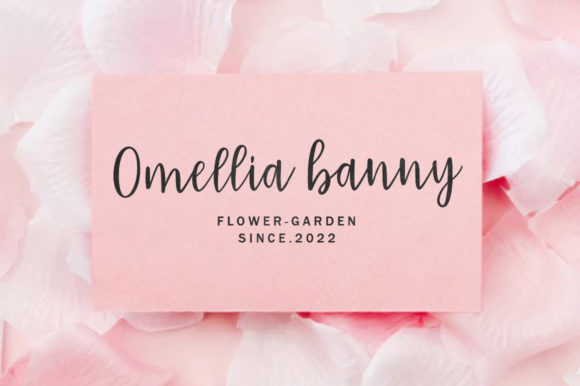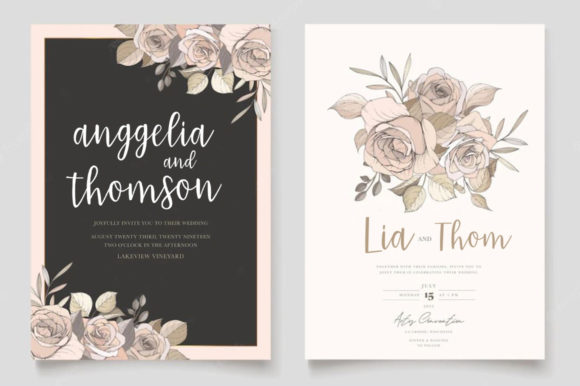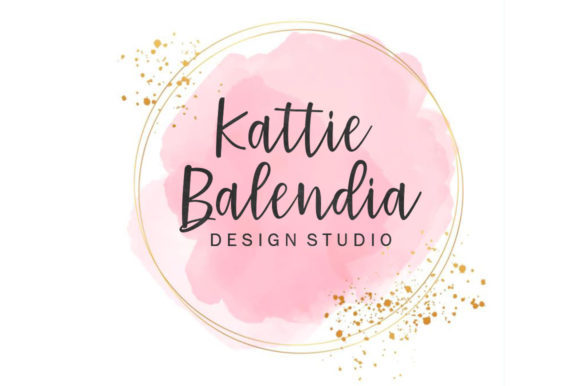
Brightest Font
Brightest is a sweet and delicate handwritten font. Dainty and joyful, this font will be ideal for writing wedding invitations, cards or any other design that may need a romantic, personalized touch!